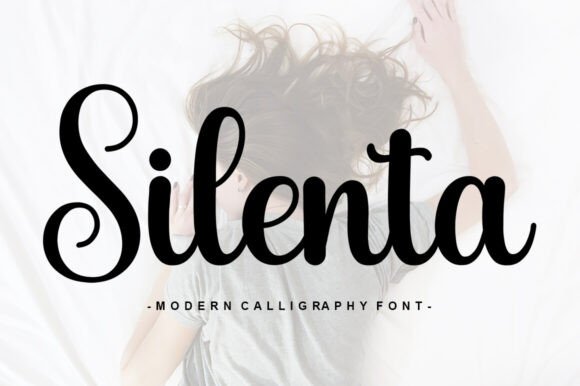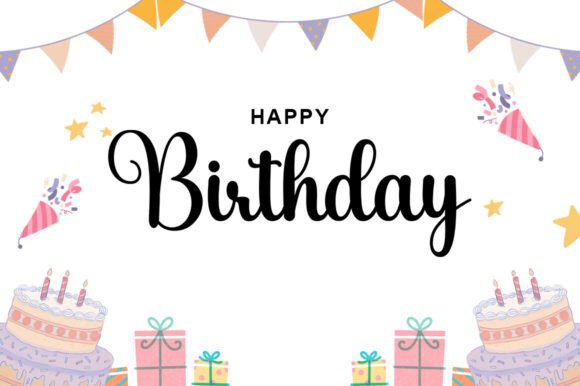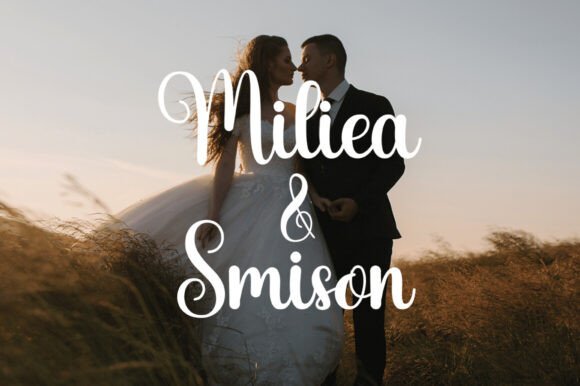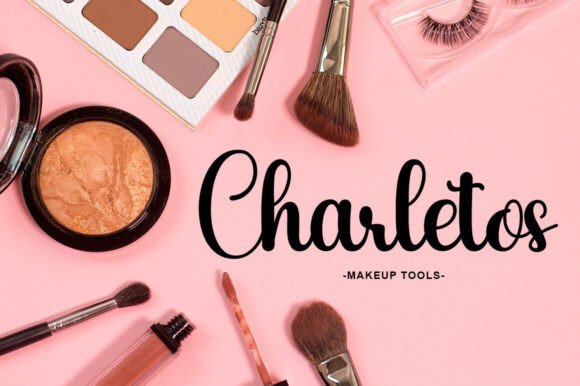
Silenta Font: Sweet Handwritten Script for Wedding & Logo Design
About the Silenta Font
Elevate your designs with Silenta Font, a font that combines sophistication with readability. Silenta is a sweet and cursive handwritten font. This gentle font will look gorgeous on a variety of design ideas. It will add a joyful and romantic touch to each of your projects! Perfectly fit for branding, logo, wedding things, greeting cards, fashion, lookbook, marketing promotion, and any time you want your design to look fancy and elegant but still casual.
Silenta Font Usage Examples
Silenta Font Example